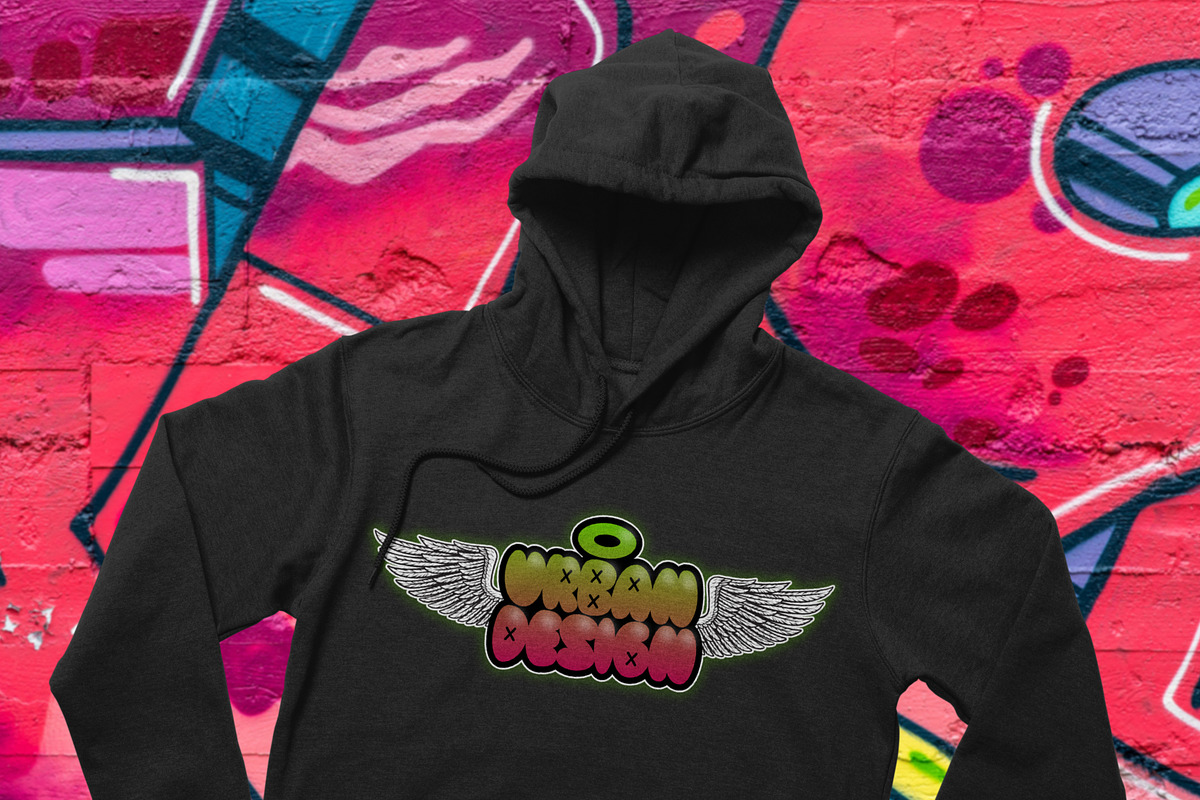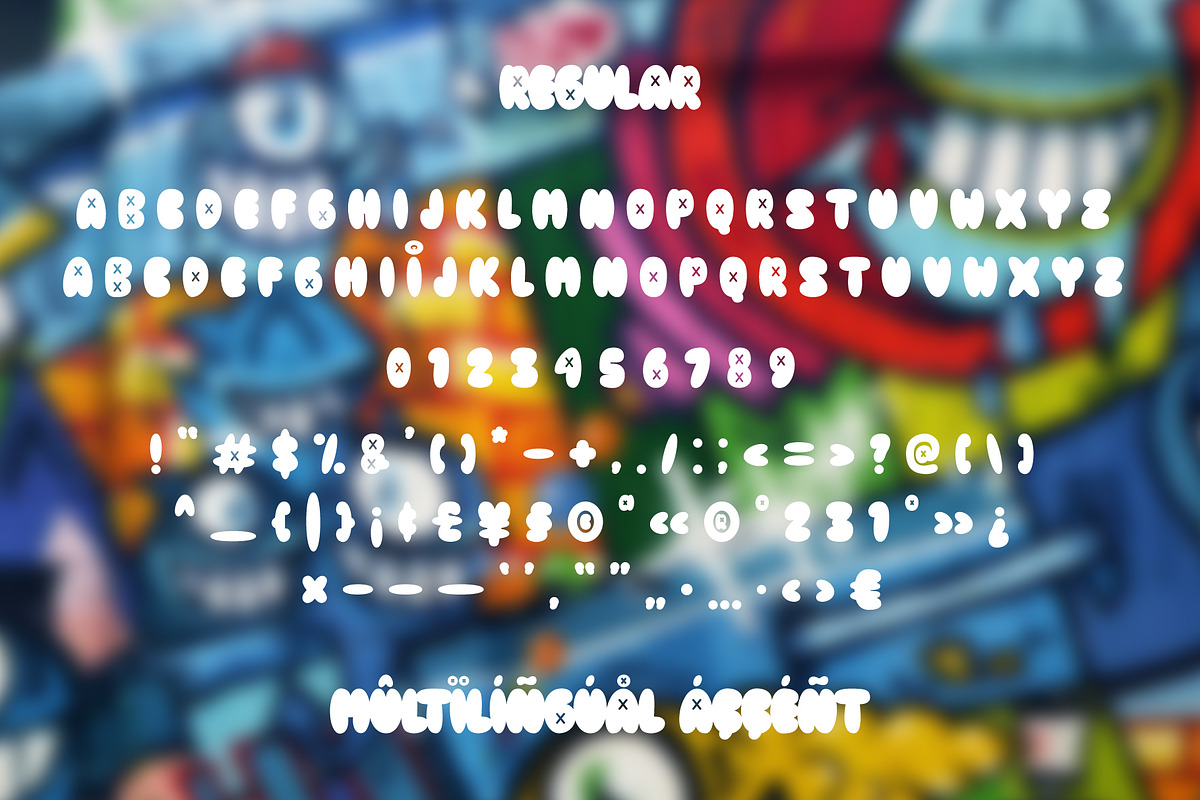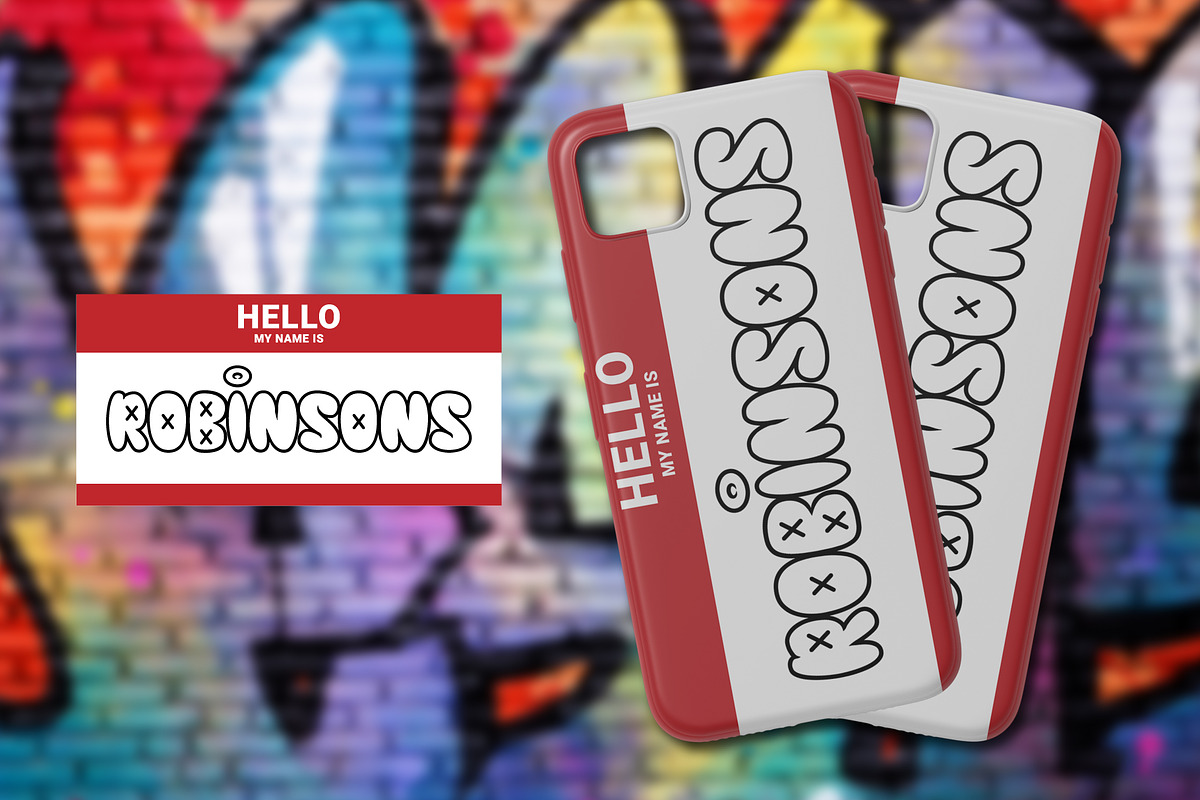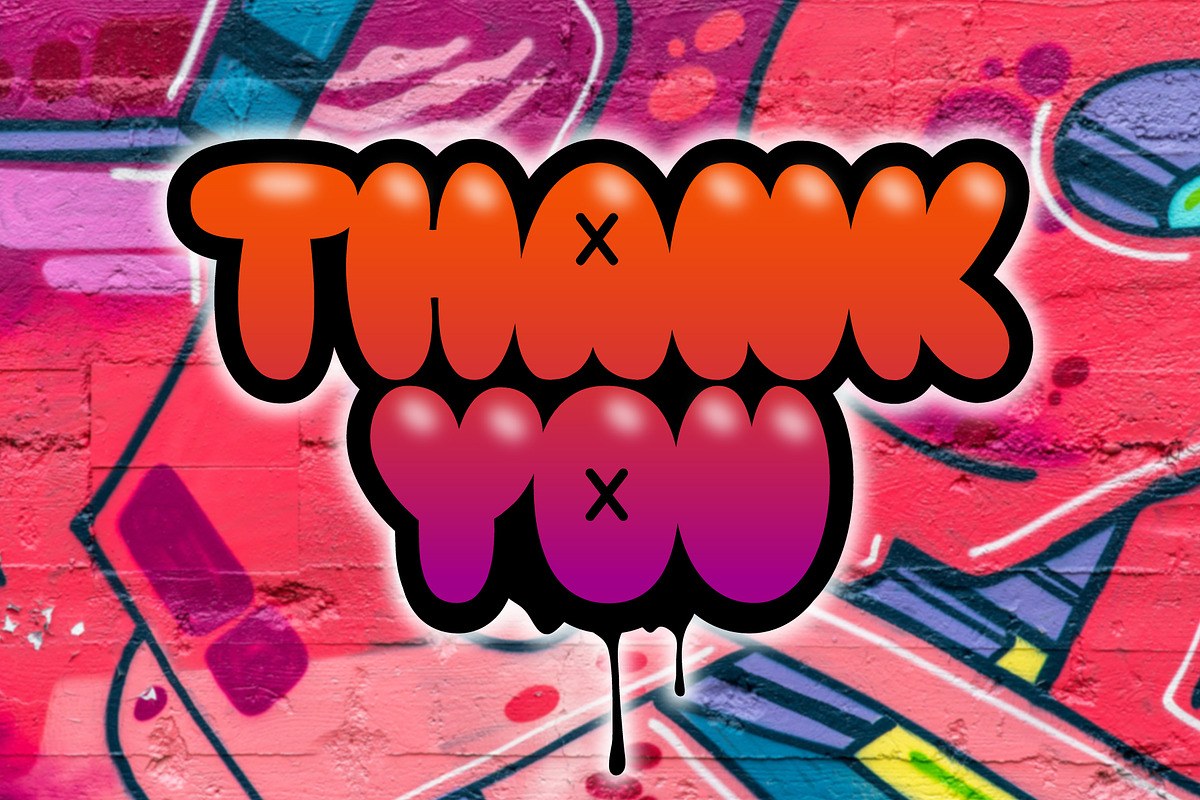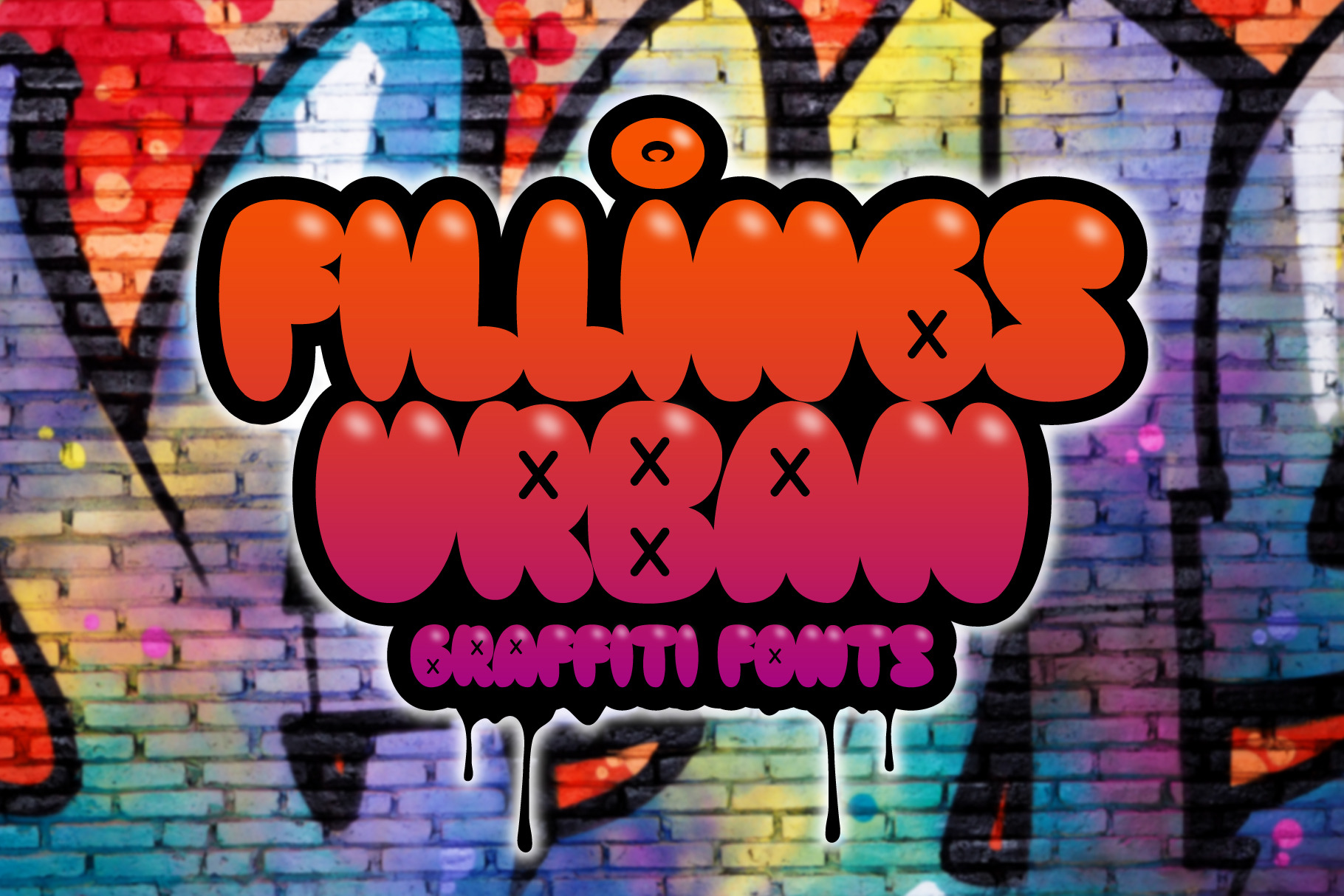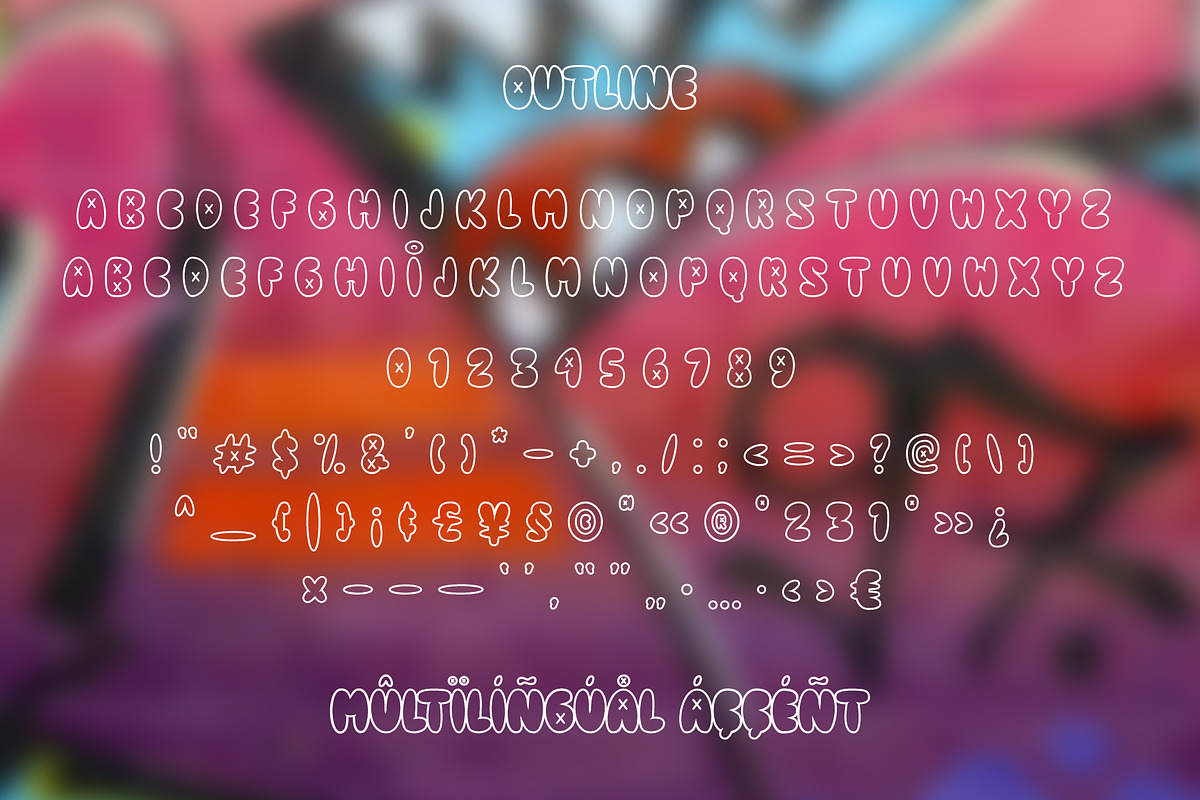
Fillings Urban - Graffiti Fonts
The graffiti style that is favored by young people. Comes in 2 styles (Regular & Outline). Can be applied to clothing design, crafts, posters, hip hop music, children's book covers, comics, cartoons etc.
- Features: Uppercase, Lowercase ( All Caps), Numeral, Punctuation & Multilingual.
- Multilingual contained: Afrikaans, Albanian, Asu, Basque, Bemba, Bena, Breton, Catalan, Chiga, Cornish, Danish, Dutch, English, Estonian, Filipino, Finnish, French, Friulian, Galician, German, Gusii, Indonesian, Irish, Italian, Kabuverdianu, Kalenjin, Kinyarwanda, Luo, Luxembourgish, Luyia, Machame, Makhuwa-Meetto, Makonde, Malagasy, Manx, Morisyen, North Ndebele, Norwegian Bokmål, Norwegian Nynorsk, Nyankole, Oromo, Portuguese, Quechua, Romansh, Rombo, Rundi, Rwa, Samburu, Sango, Sangu, Scottish Gaelic, Sena, Shambala, Shona, Soga, Somali, Spanish, Swahili, Swedish, Swiss German, Taita, Teso, Uzbek (Latin), Volapük, Vunjo, Zulu.